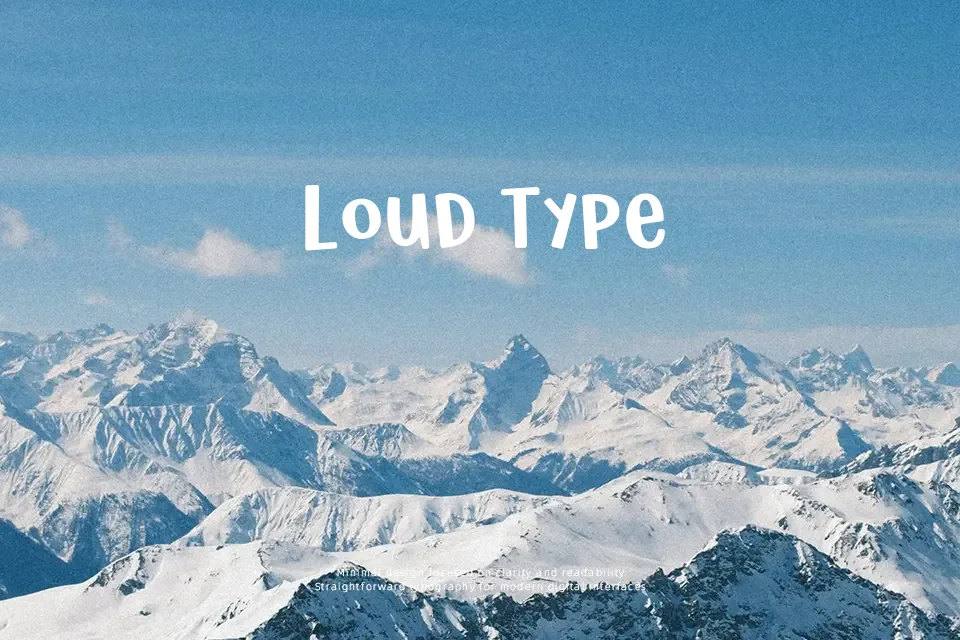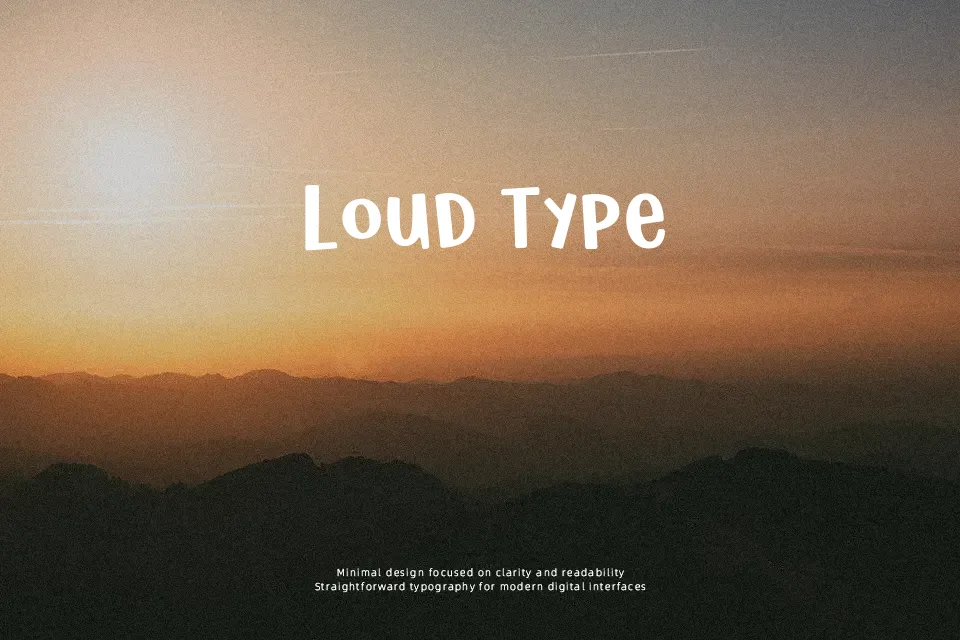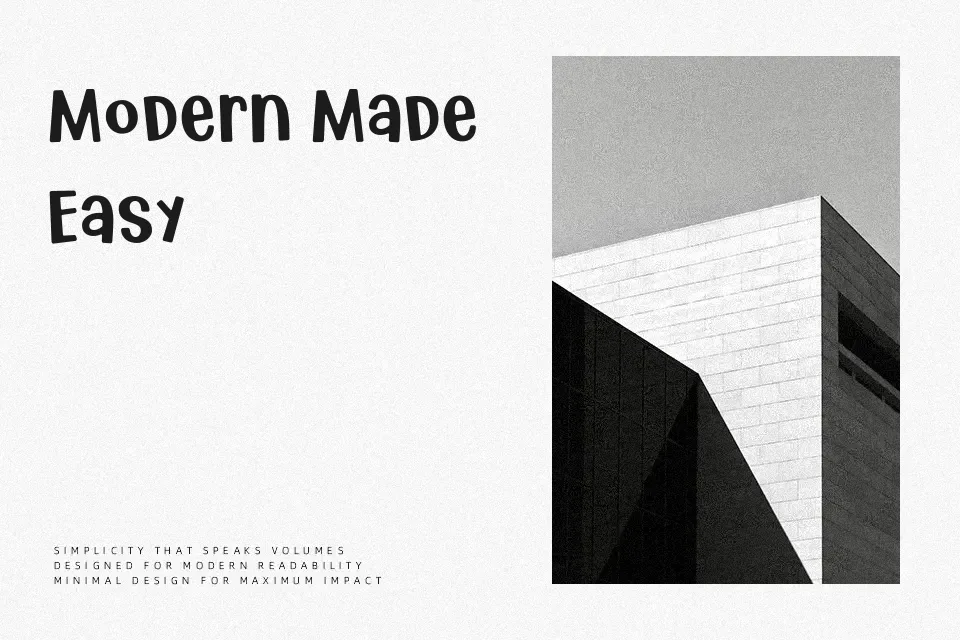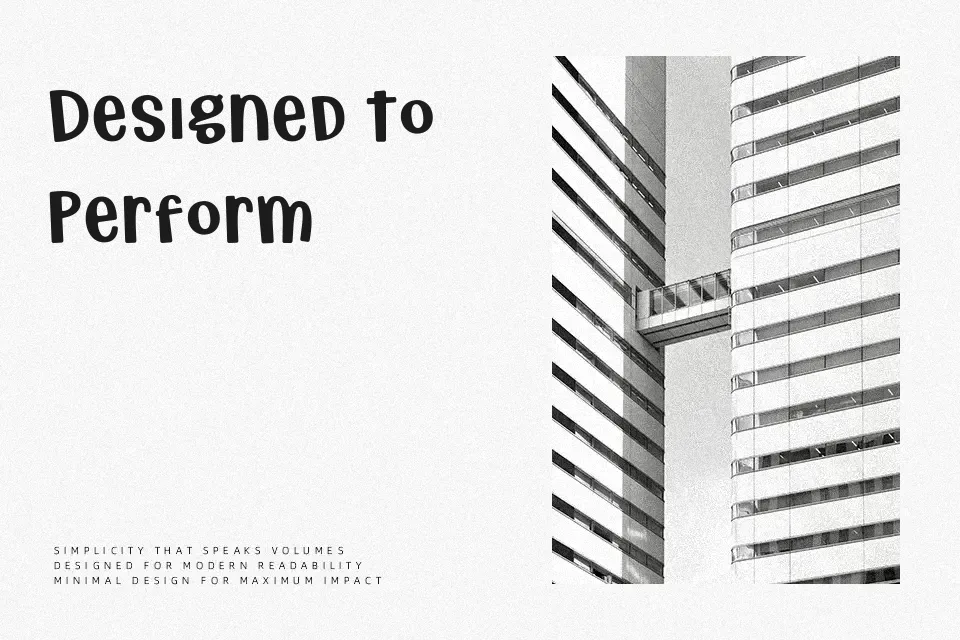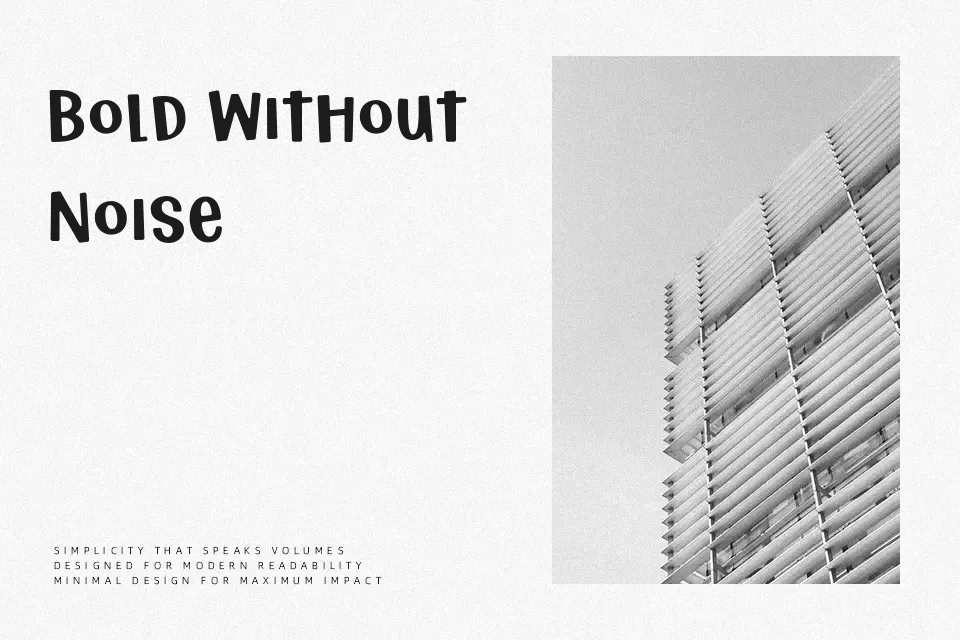
Suburban Flamingo Font
Suburban Flamingo Font delivers a relaxed cartoon aesthetic marked by softened terminals, consistent low-contrast strokes, and subtly playful proportions. Open counters and comfortable inter-character spacing keep the letterforms legible across medium display settings and prominent headline layouts. This typeface excels in creative environments such as youth-oriented product packaging, classroom materials, humorous comic lettering, and cheerful event posters. However, the irregular handcrafted rhythm and softened angles become visually fatiguing within extensive body copy. The design performs at its absolute best when used sparingly for bold decorative titles rather than prolonged editorial text.
children’s book covers, playful product packaging, cartoon posters, craft branding
dense paragraph text, technical documentation, corporate financial reports, small interface labels
Perfect for headline, kids, and packaging, with a creative and cartoon style.